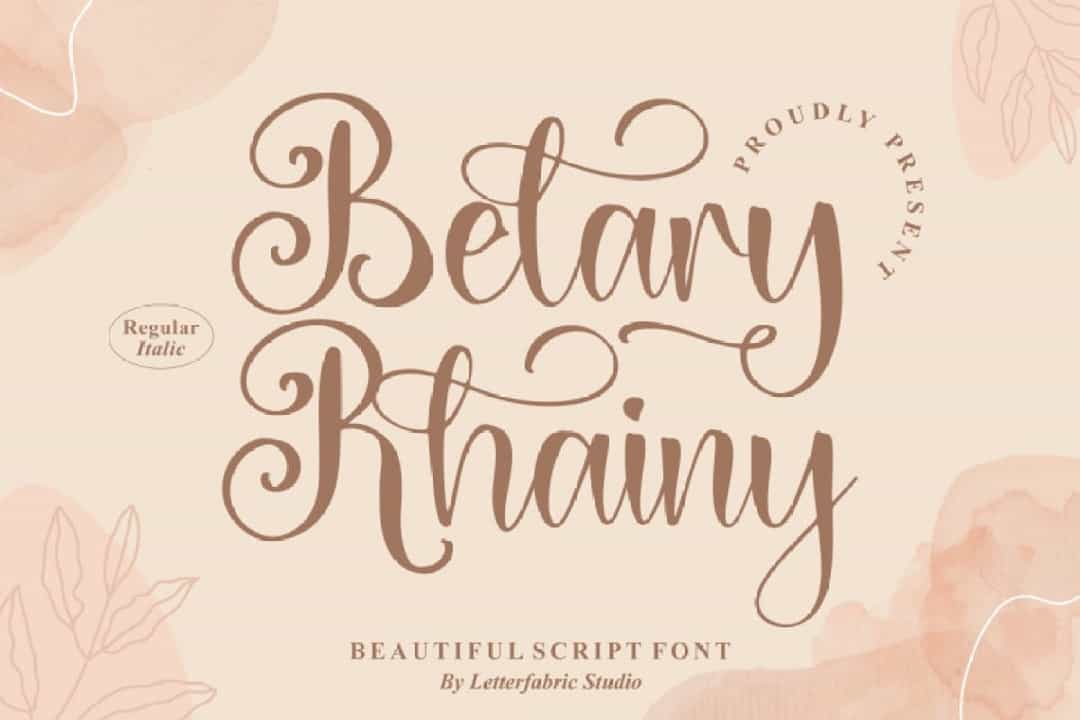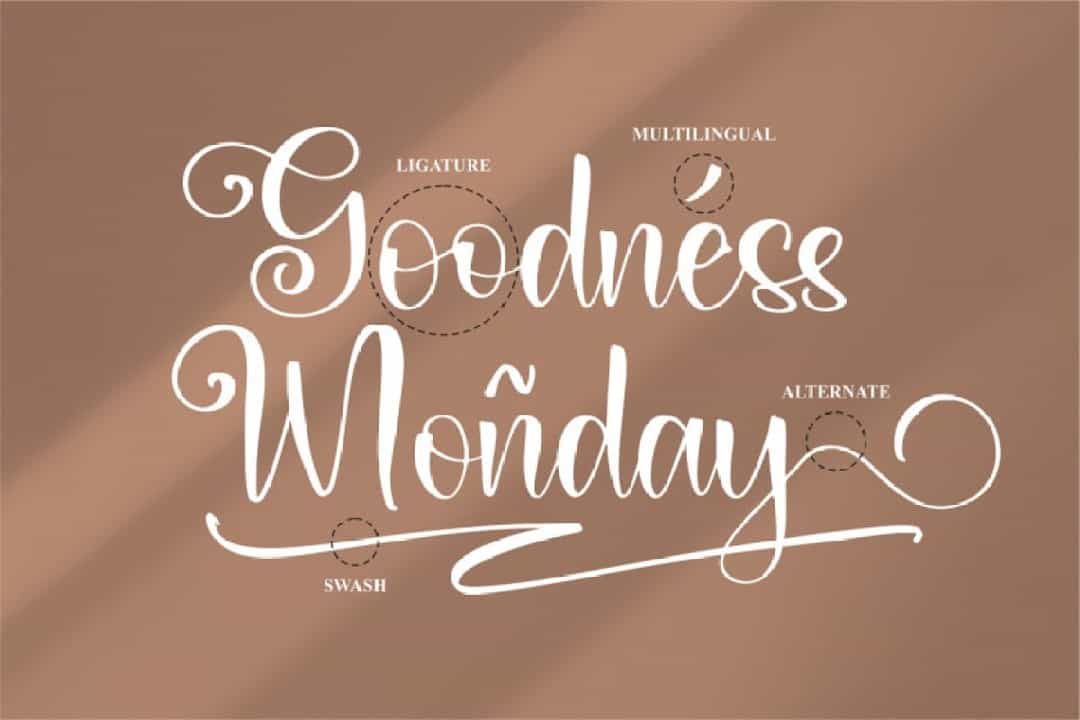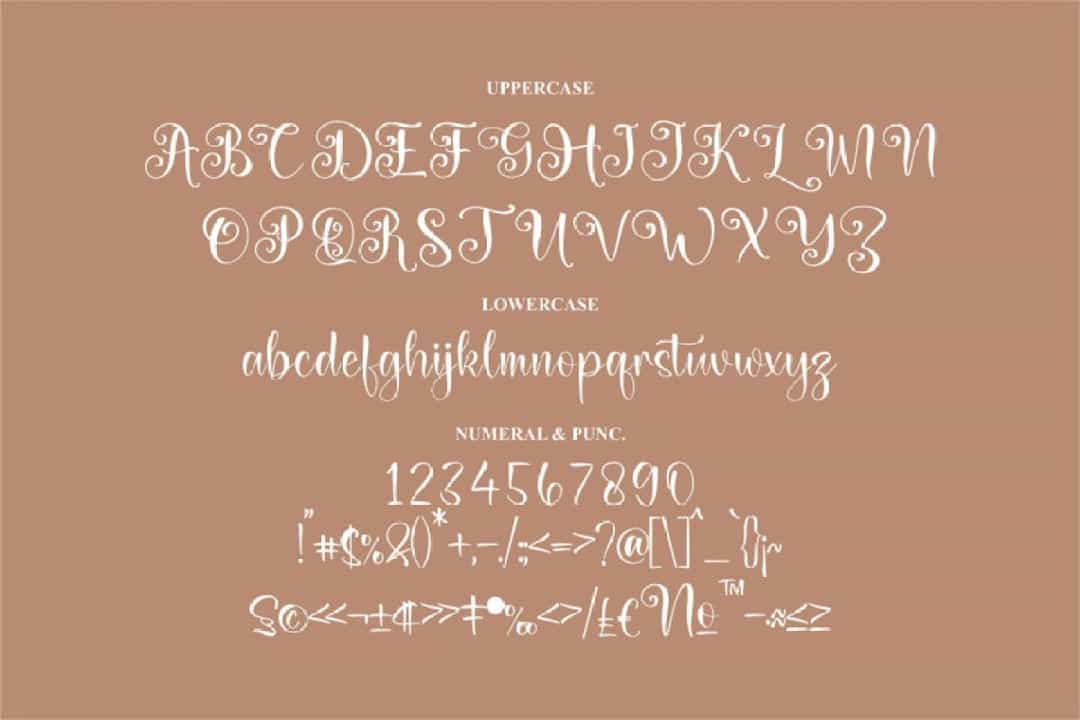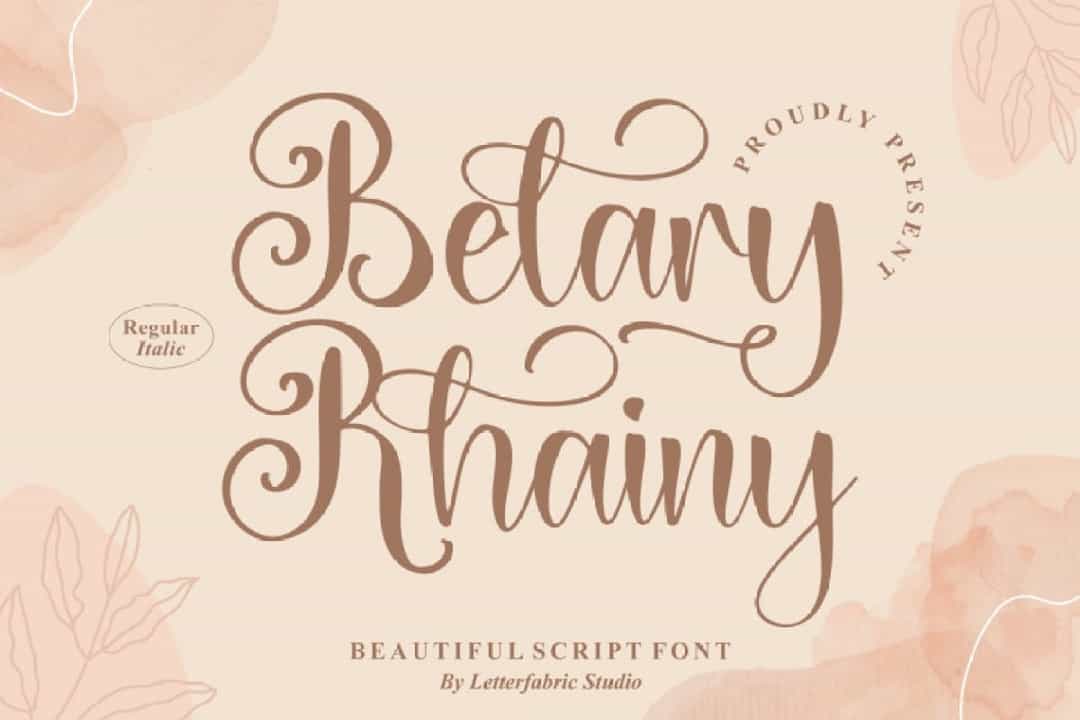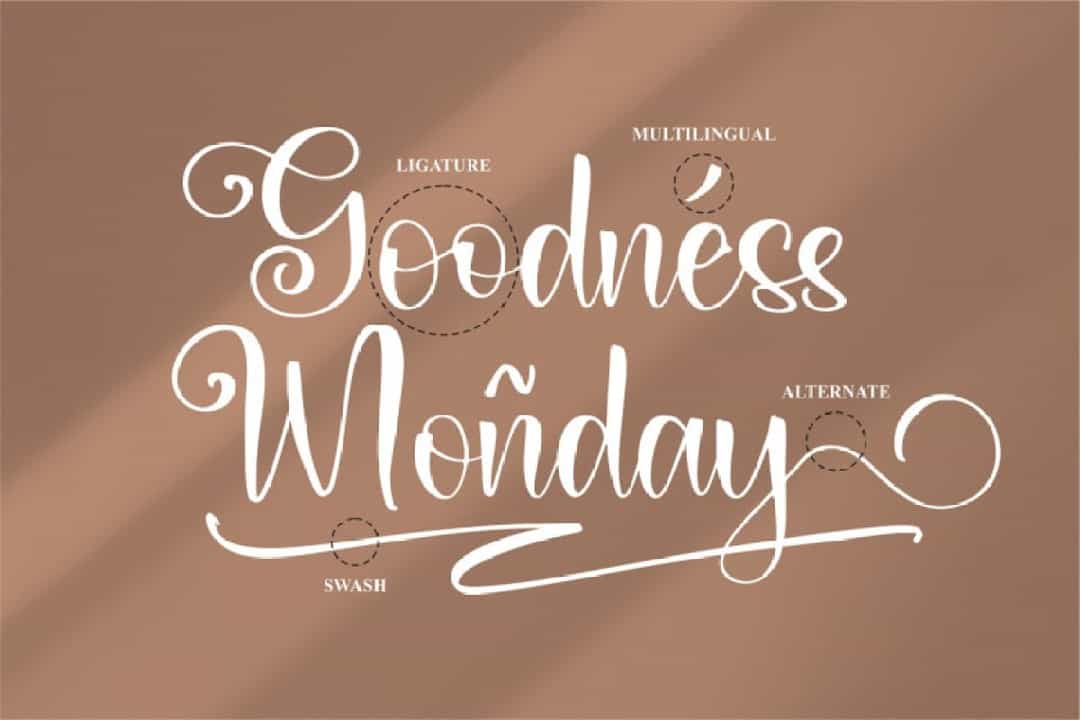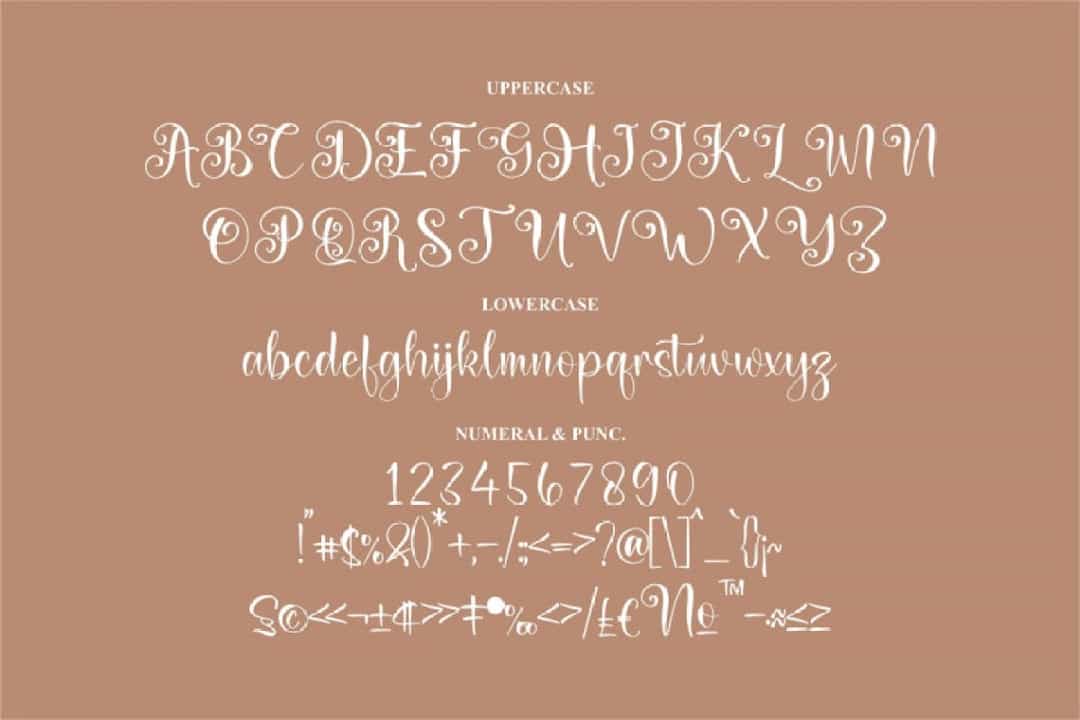
Belary Rhainy is an exquisite script calligraphy font, perfect for logos, branding and marketing projects, packaging designs (such as mugs), posters (posters with quotes/T-shirt quotes etc), shopping bags Book covers and any other projects requiring that special touch. Plus it is PUA encoded so all its characters and swashes can be easily accessed!